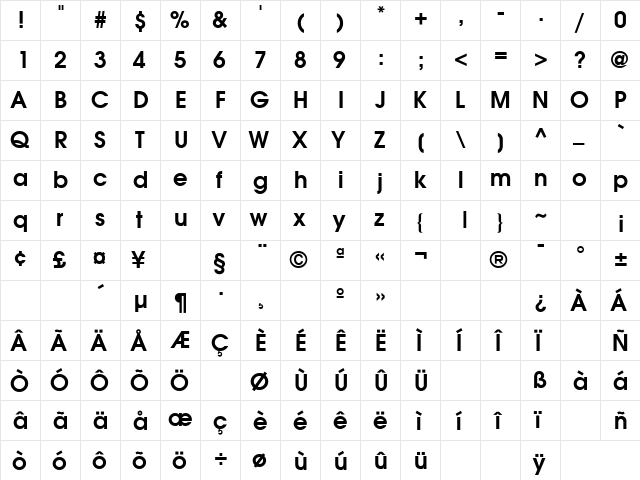
Moderne Demi Font Preview
Moderne Demi
Design Context for Moderne Typeface
Moderne takes a measured approach to typography — its balanced proportions and neutral character make it a reliable workhorse for both digital and print work.